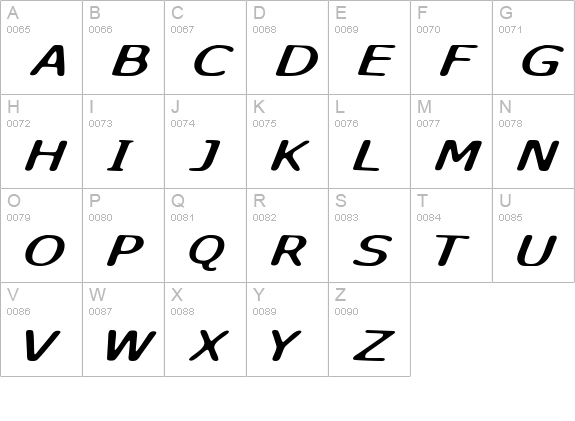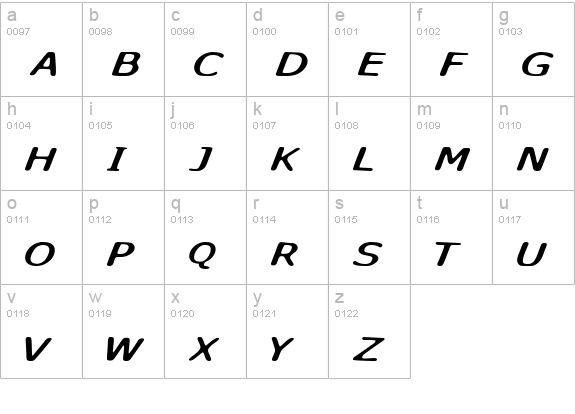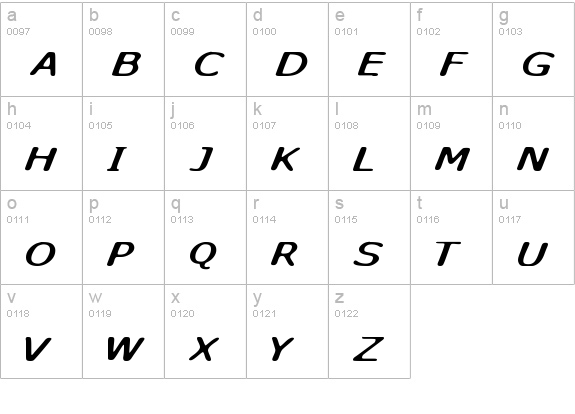
Sky Skunk Font Details
Introducing Sky Skunk, a captivating and versatile font that is bound to take your designs to new heights. With its sleek and modern design, Sky Skunk exudes an air of sophistication and elegance. This font is perfect for a wide range of projects, whether it be creating eye-catching logos, designing stunning posters, or crafting stylish invitations. But what truly sets Sky Skunk apart is its unique ability to effortlessly blend both professionalism and playfulness. Its clean lines and well-balanced letterforms give it a polished and refined look, while its subtle curves and subtle serifs add a touch of whimsy and charm. This harmonious combination makes Sky Skunk the perfect choice for those who want to make a statement with their typography. And the best part? Sky Skunk is absolutely free! That's right, this incredible font can be downloaded without any cost at FontsMarket.com. So whether you're a professional designer looking to expand your font collection or a casual user in need of a font that stands out, Sky Skunk is here to meet your needs. So don't miss out on the opportunity to add this versatile and visually stunning font to your arsenal. Download Sky Skunk today and experience the power of creative typography at your fingertips.